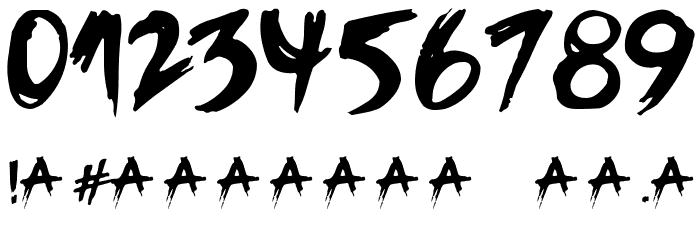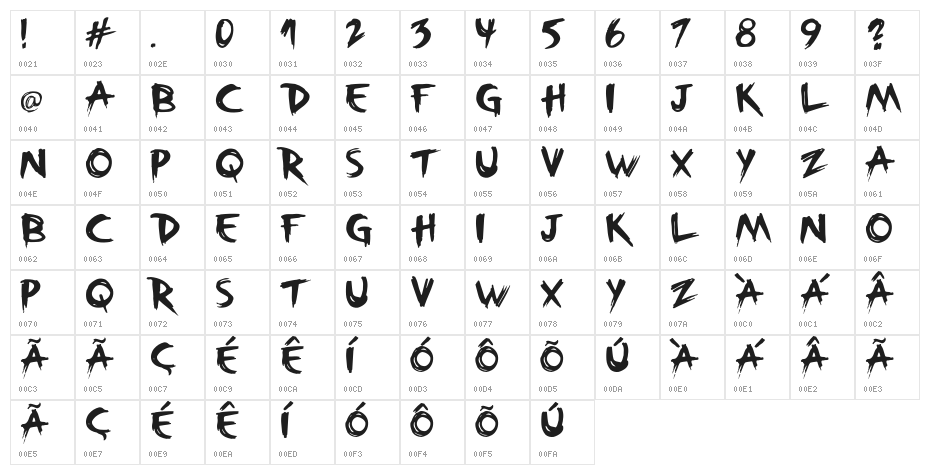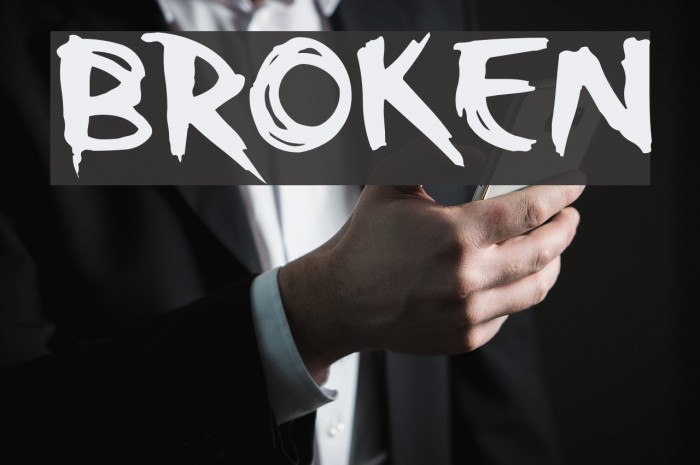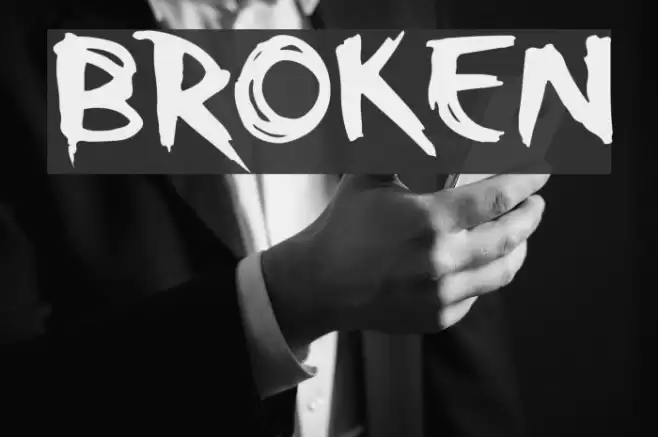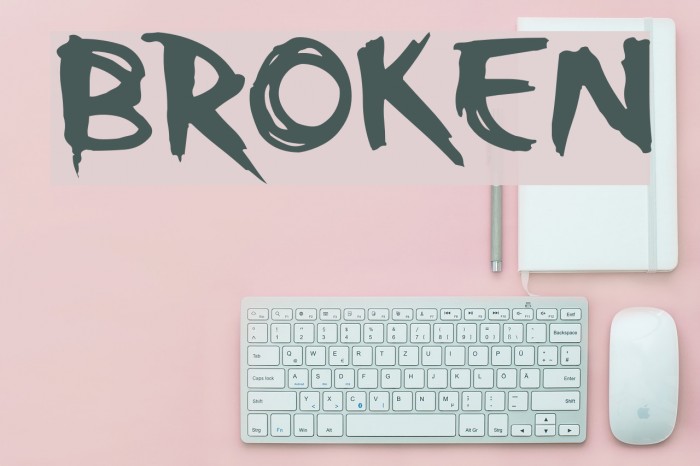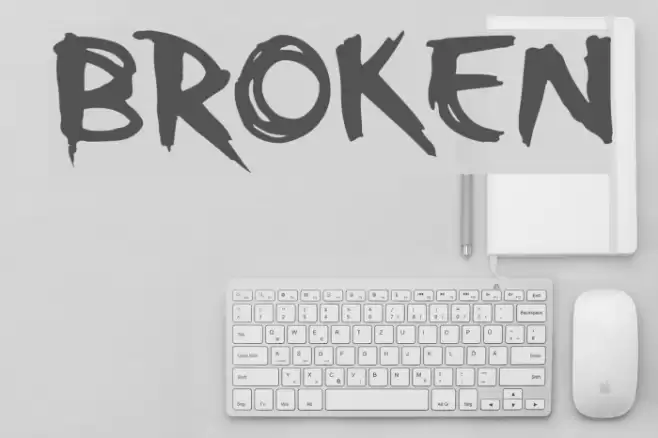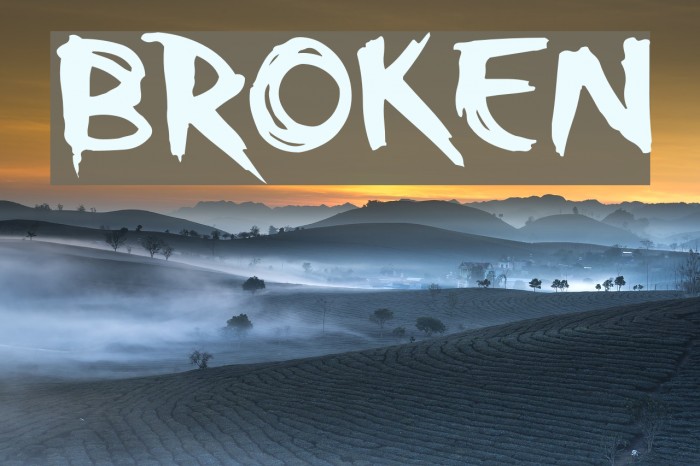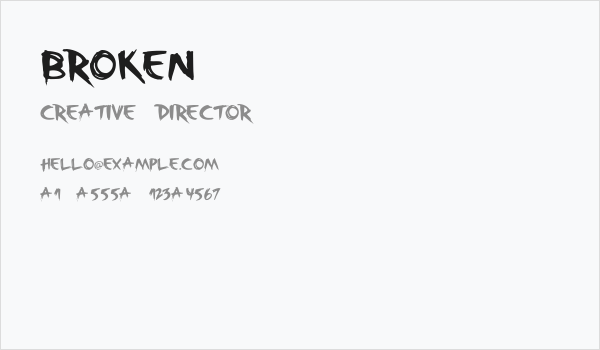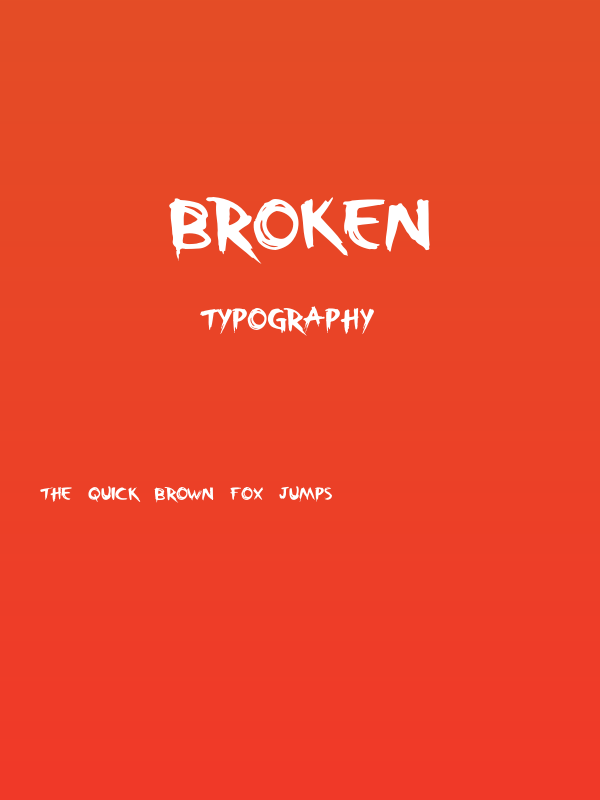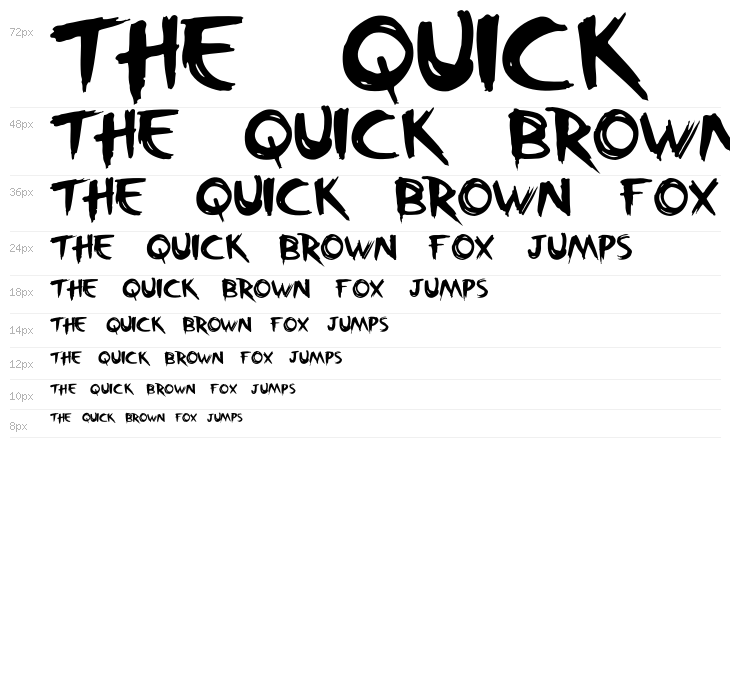
Broken Font
Broken Description
This font features a bold and dynamic style with sharp, jagged edges that give it an energetic and rebellious feel. The characters are designed with irregular strokes, creating a sense of movement and intensity. The uppercase and lowercase letters maintain a consistent style, while the numbers and special characters follow the same edgy aesthetic. This font is perfect for projects that require a bold statement, capturing attention with its striking appearance.
Overall StyleModern, Energetic
Proposed ProjectsIdeal for music album covers, posters, graffiti art, and branding that requires a bold, edgy look.